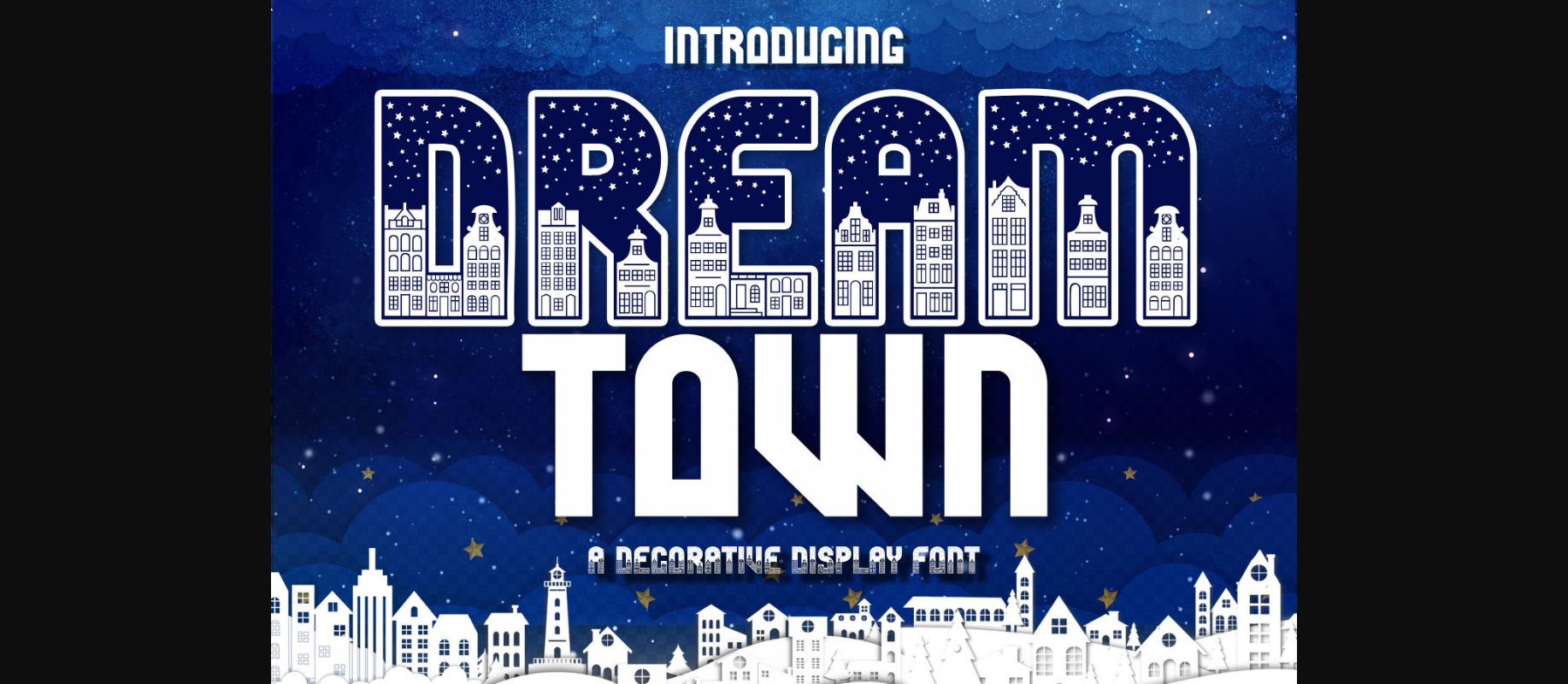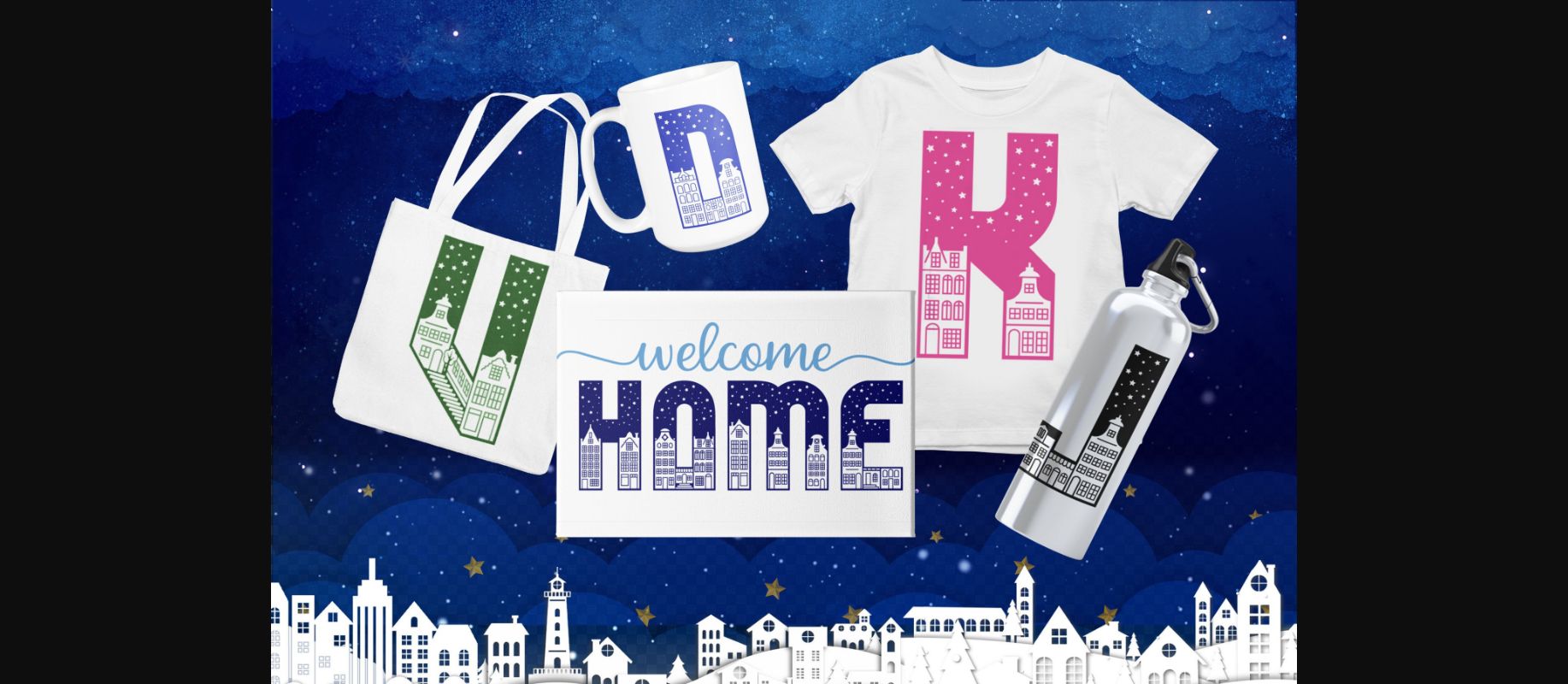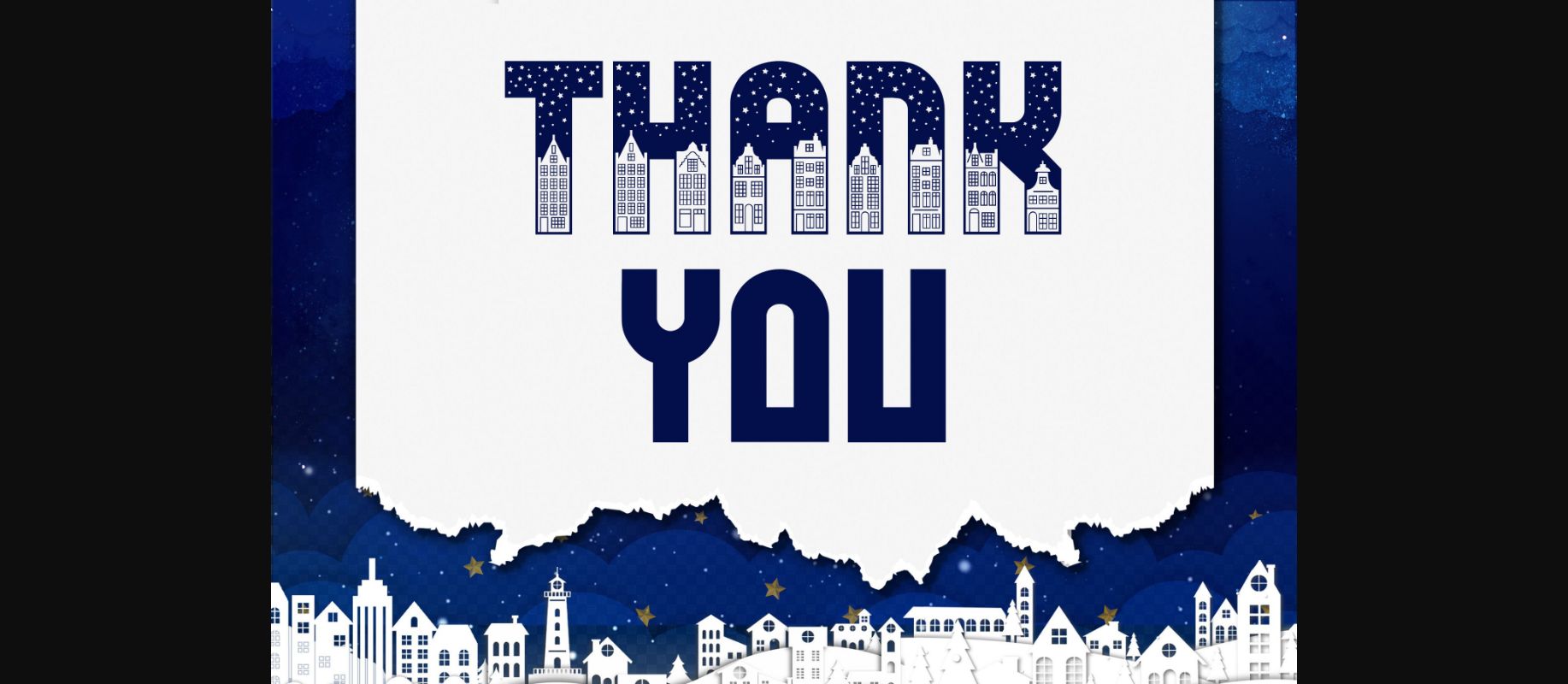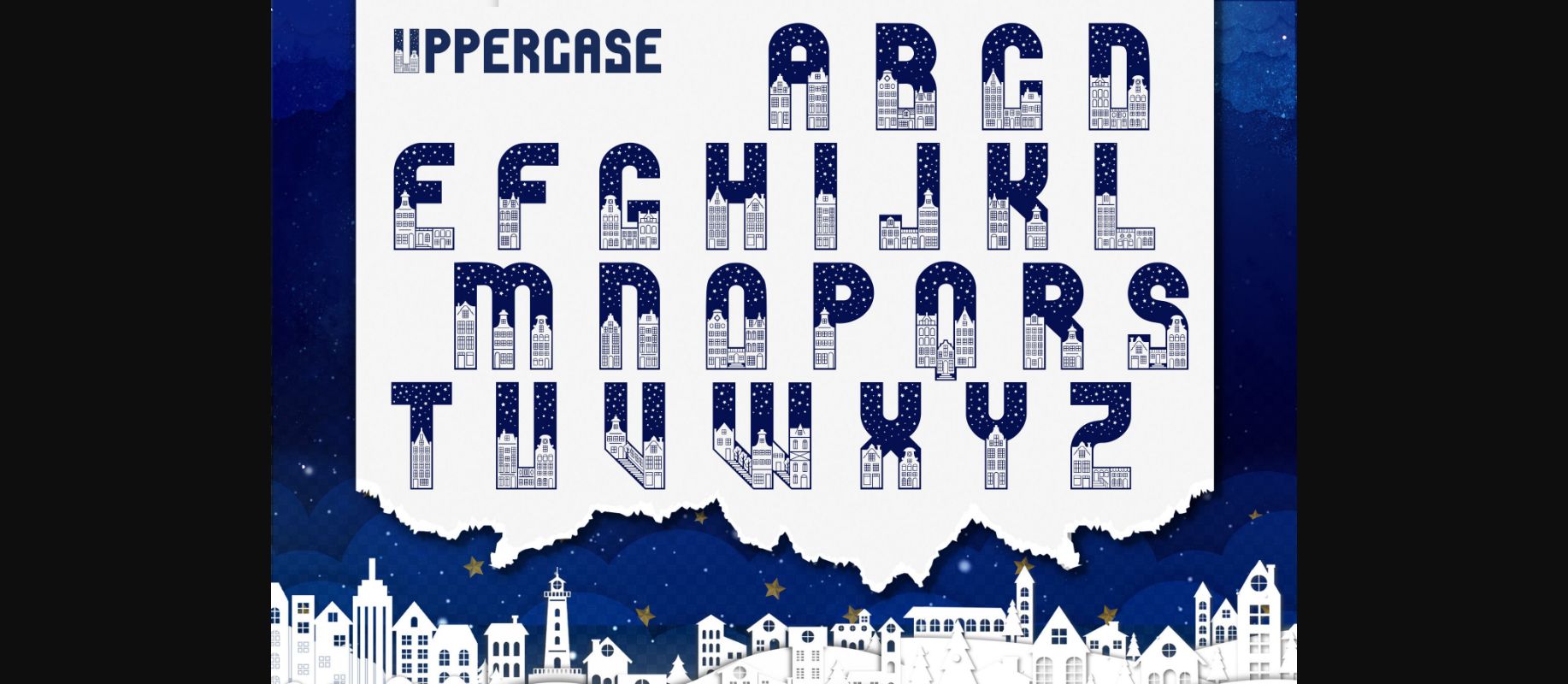
About Dream Town Font
Dream Town is a geometric font with designs of vintage buildings and the night sky inside. It comes with bonus SVG files for the cutting machine. This unique decorative typeface is perfect for DIY handmade craft projects.